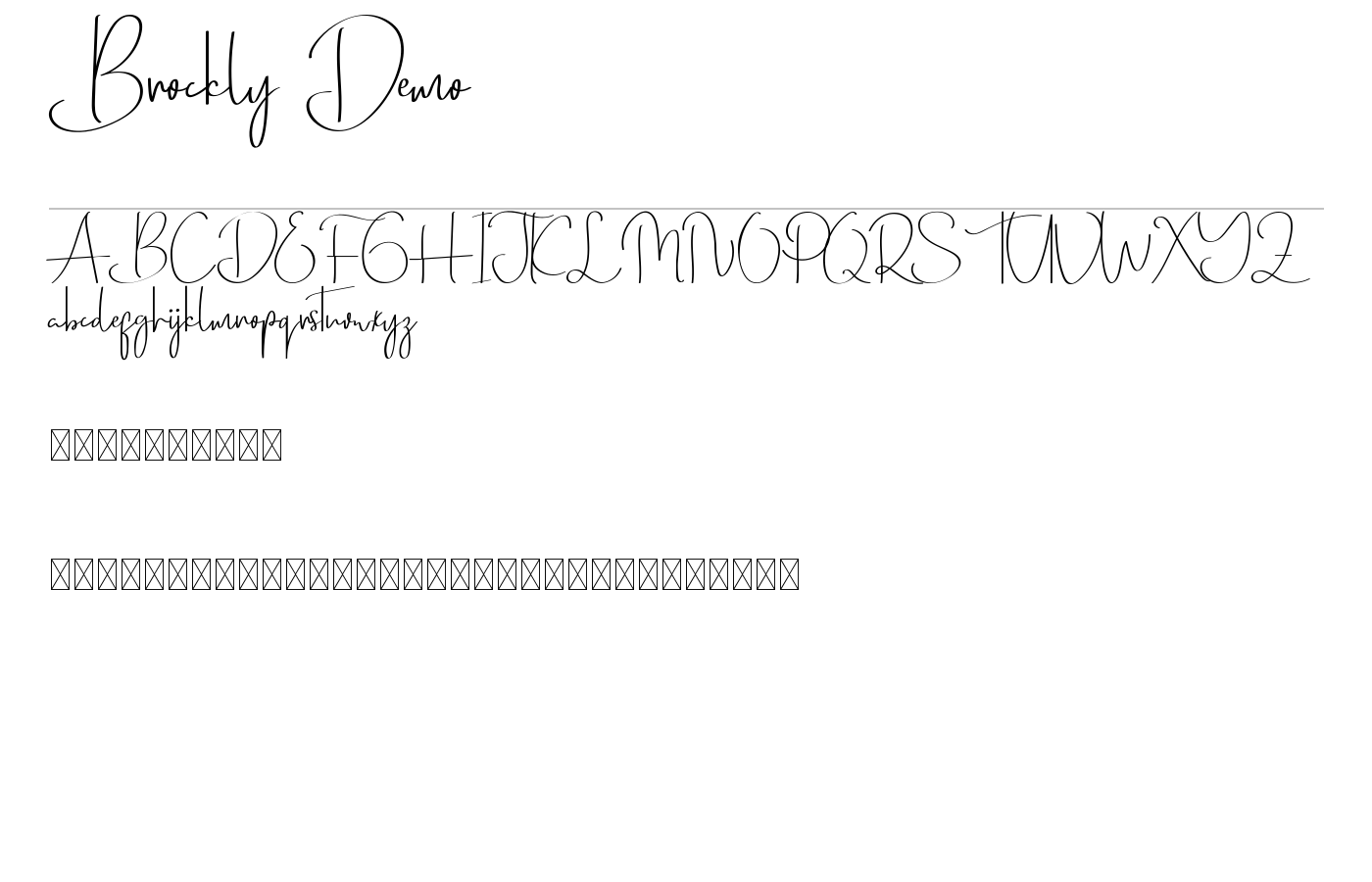
Brockly Demo is a delicate, hand-drawn script font with an airy, elegant feel. Its thin, flowing lines and casual yet refined letterforms make it perfect for invitations, branding, and creative projects that need a personal, stylish touch. This font works best in large sizes where its graceful details can truly shine.
Brockly Demo Font
About Brockly Demo Font